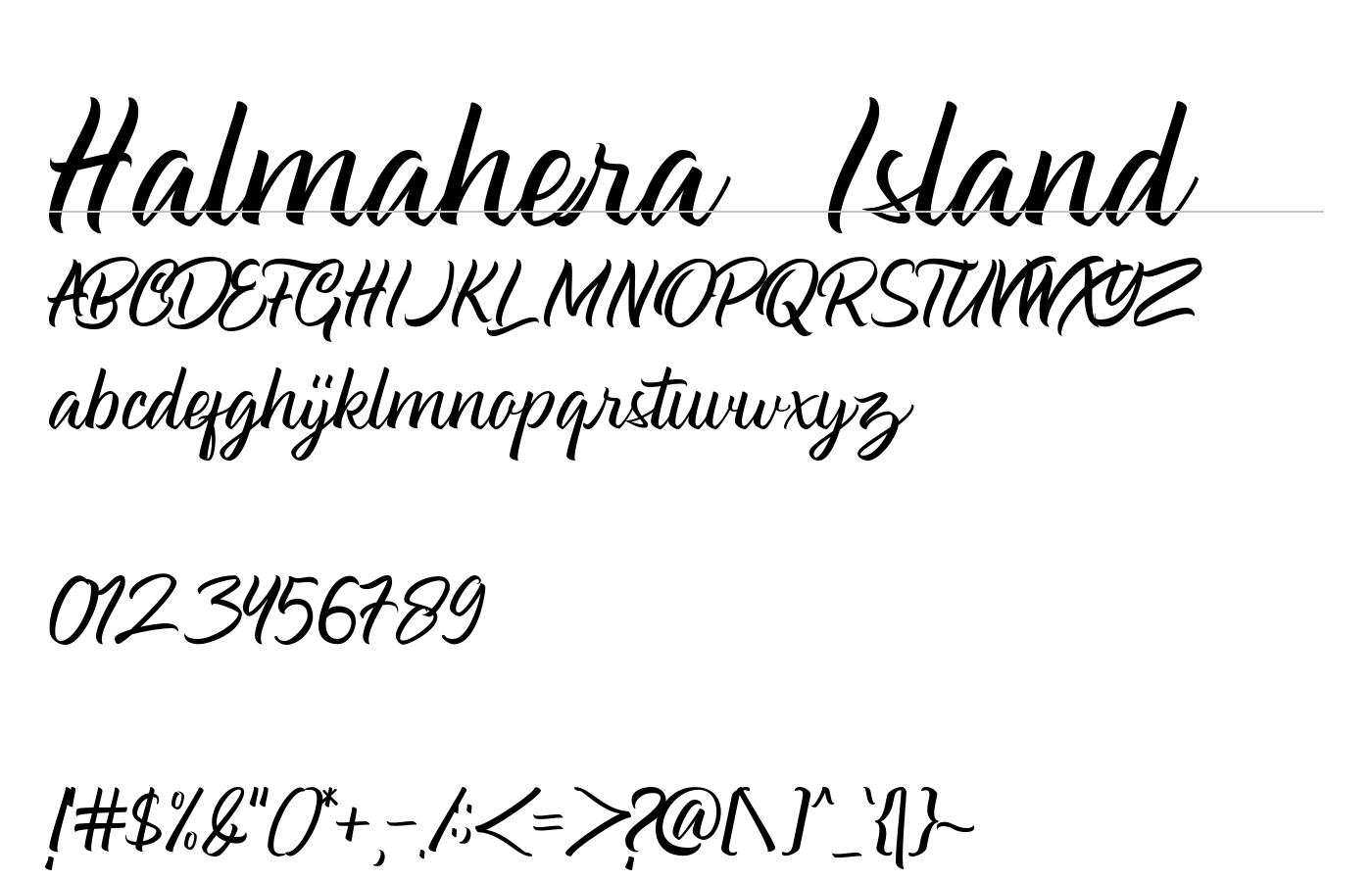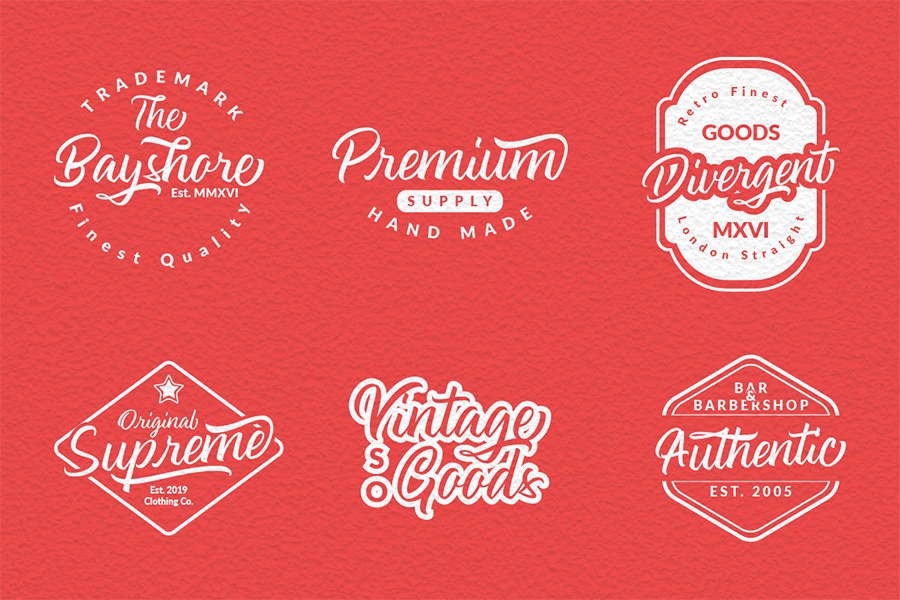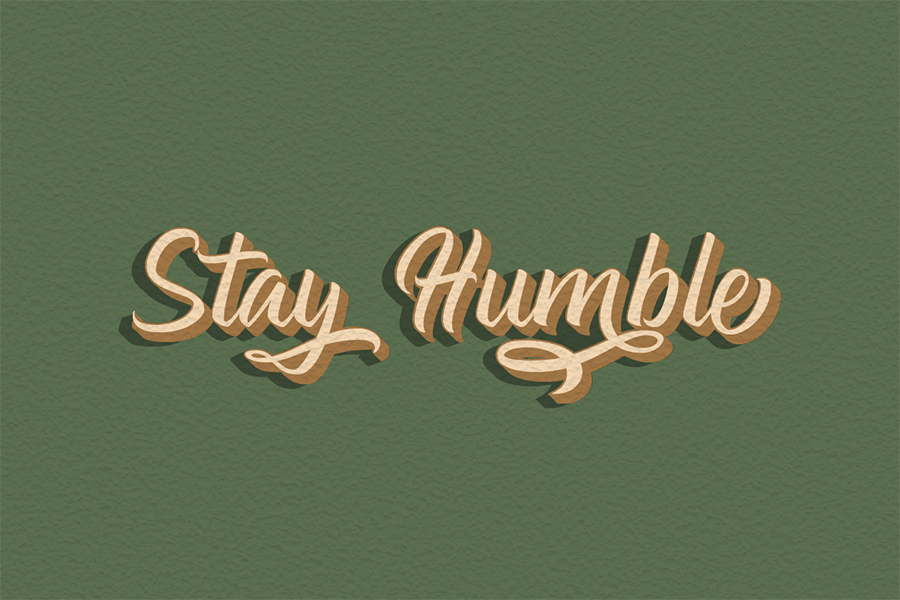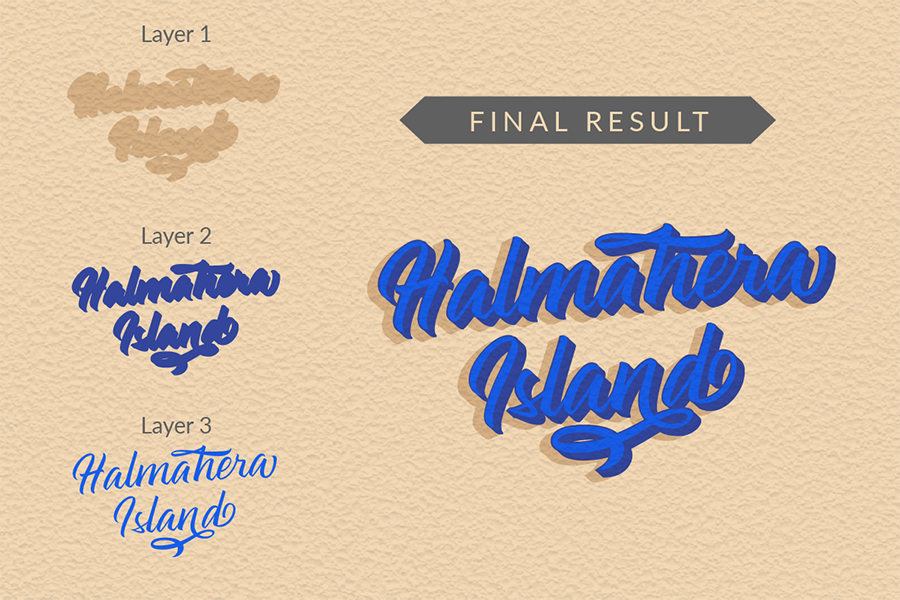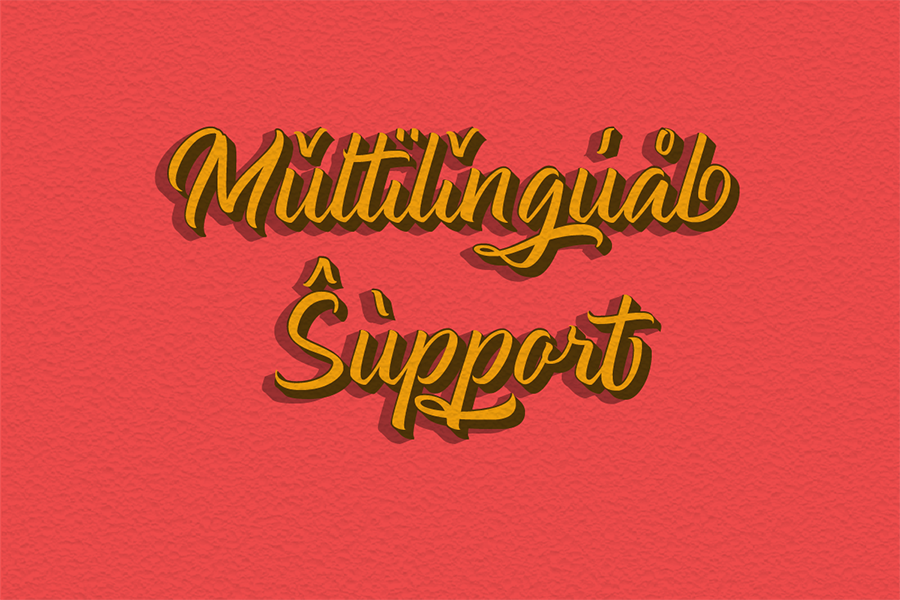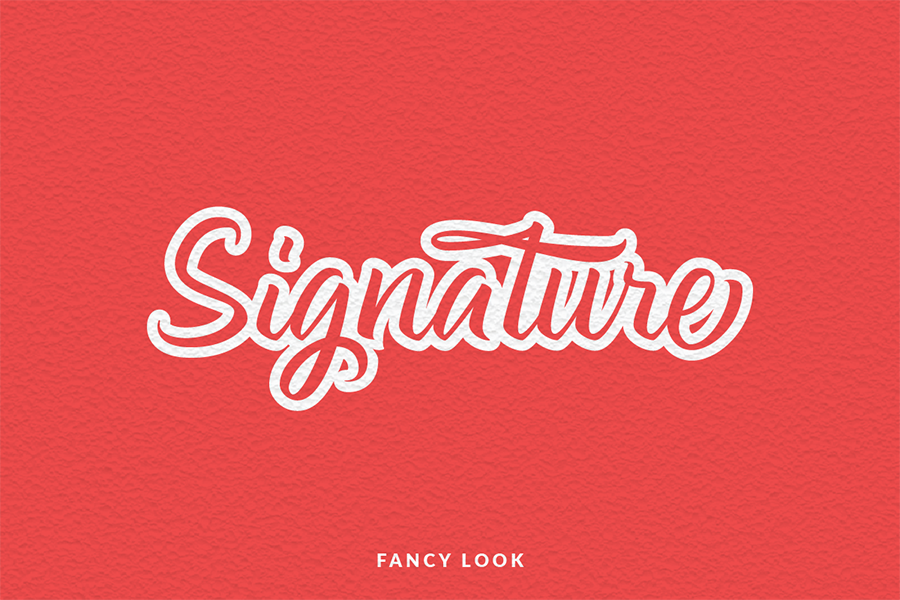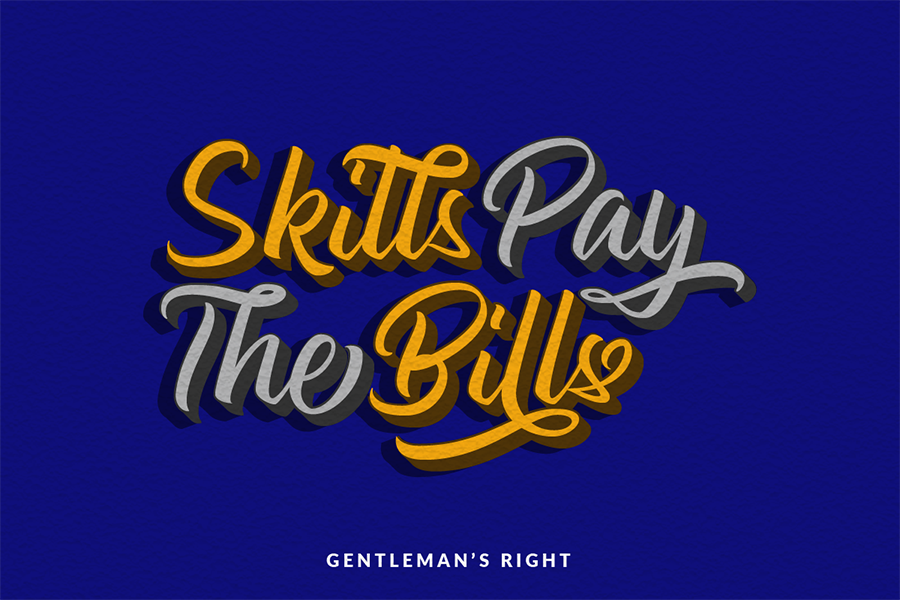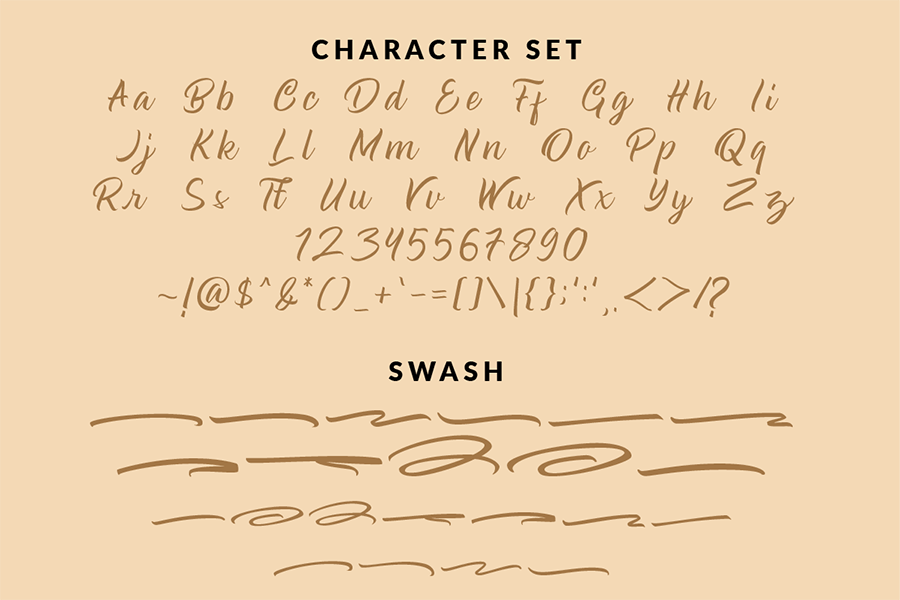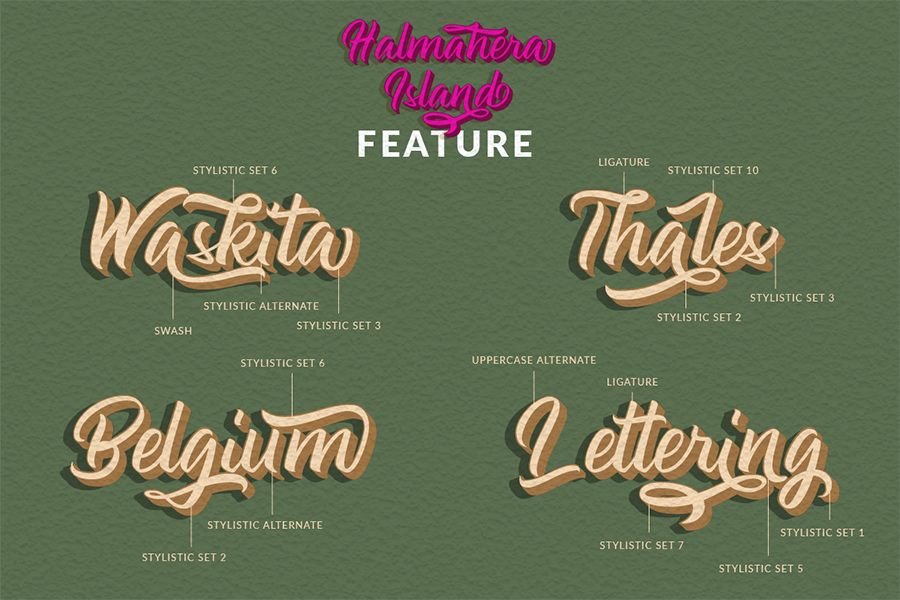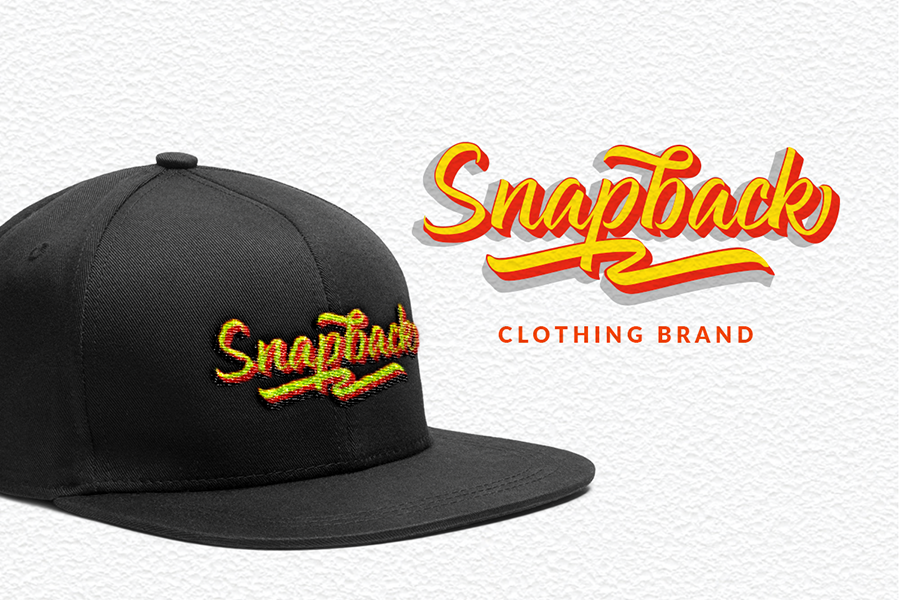
Halmahera Island Font Demo
Halmahera Island Font Demo is the latest font work by Youthlab Studio. This font takes the island of Halmahera, North Maluku Province as inspiration; which has a lot of beautiful destinations like Beach, Diving Spot, Waterfall, and a more recommended place. Halmahera Island Font made with the beauty of Hand Calligraphy with 3 Layer Font that makes your Design look 3D.